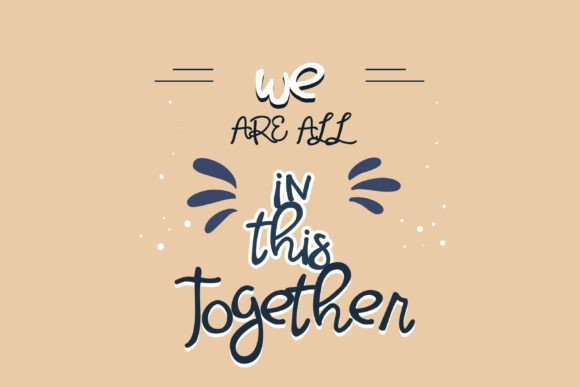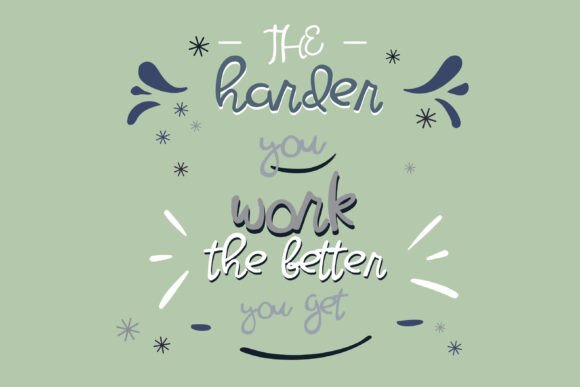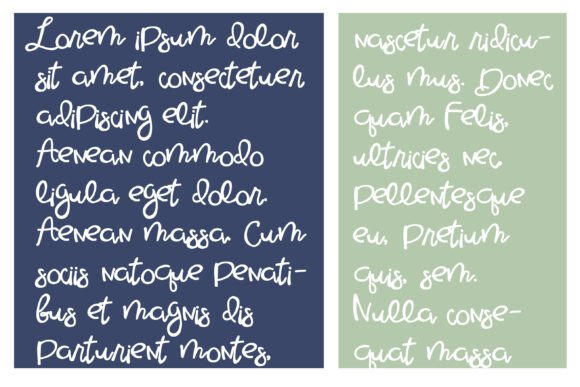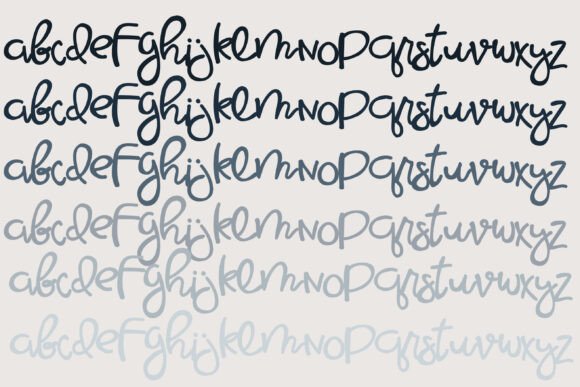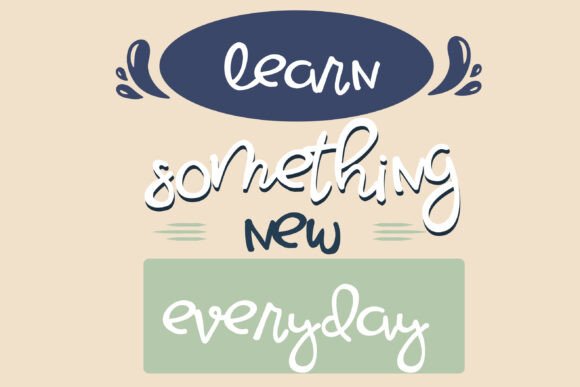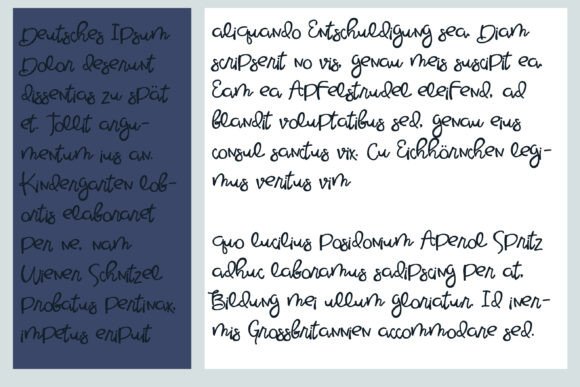
Introducing Flitches Font: A Hand-Crafted Masterpiece for Creative Projects
Are you tired of using the same old fonts for your creative projects? Look no further than Flitches Font, a hand-crafted masterpiece that combines the best of print and script to create a youthful and fun typography experience. In this article, we’ll dive into the world of Flitches Font, exploring its unique features, uses, and benefits for designers and crafters alike.
A hand-crafted font, also known as a handwritten font, is a typeface that is designed to mimic the look and feel of handwriting. It’s as if a skilled artist took a pen and paper and carefully crafted each letter, word, and sentence to create a unique and personalized typography experience. Hand-crafted fonts can range from formal and elegant to informal and playful, making them suitable for a wide range of applications, from invitations and greeting cards to branding and advertising.
Meet Flitches Font: A Mix of Print and Script
Flitches Font is a one-of-a-kind, hand-crafted font that blends the best of print and script to create a truly unique typography experience. This font is perfect for designers and crafters looking to add a touch of personality and whimsy to their projects. With both bold and light versions included, Flitches Font offers versatility and flexibility, making it suitable for a wide range of applications, from titles and headings to body text and captions.
Key Features of Flitches Font
- Hand-crafted design: Each letter, word, and sentence is carefully designed to mimic the look and feel of handwriting.
- Mix of print and script: Flitches Font combines the best of both worlds, creating a unique and engaging typography experience.
- Youthful and fun: This font is perfect for projects that require a playful and energetic vibe.
- Bold and light versions: Flitches Font offers two weight options, making it suitable for a wide range of applications.
- Easy to read: Despite its hand-crafted nature, Flitches Font remains highly legible, making it perfect for body text and captions.
Uses of Flitches Font
Flitches Font is an incredibly versatile typography solution that can be used in a wide range of creative projects, including:
- Invitations and greeting cards: Add a personal touch to your invitations and greeting cards with Flitches Font’s unique and playful design.
- Branding and advertising: Use Flitches Font to create eye-catching logos, slogans, and ad copy that stands out from the crowd.
- Social media graphics: Add a touch of personality to your social media graphics, including Facebook posts, Instagram stories, and Twitter headers.
- Packaging and labeling: Use Flitches Font to create custom packaging and labeling solutions that reflect your brand’s personality.
Benefits of Using Flitches Font
So why choose Flitches Font for your creative projects? Here are just a few benefits of using this amazing hand-crafted font:
- Unique and personalized: Flitches Font adds a touch of personality and whimsy to your projects, setting them apart from the competition.
- Flexibility and versatility: With both bold and light versions included, Flitches Font can be used in a wide range of applications.
- Easy to use: Flitches Font is incredibly easy to use, even for those with limited design experience.
- High-quality design: Flitches Font is designed to the highest standards, ensuring a professional and polished look for your projects.
In conclusion, Flitches Font is an incredible hand-crafted font that offers a unique and engaging typography experience. With its mix of print and script, youthful and fun design, and bold and light versions, Flitches Font is perfect for designers and crafters looking to add a touch of personality to their projects. Whether you’re creating invitations, branding materials, or social media graphics, Flitches Font is an excellent choice. So why wait? Download Flitches Font today and start creating amazing projects that stand out from the crowd!